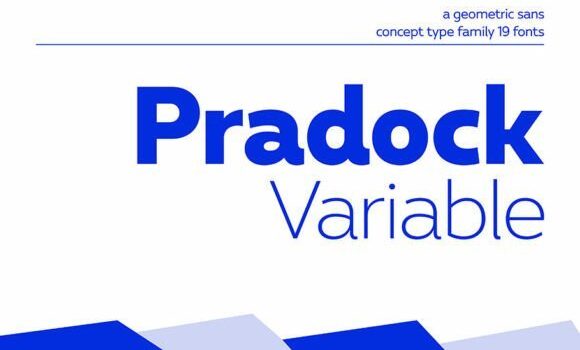
pradock
Pradock Font – Free Download Introduction to Pradock Font Pradock the newest geometric Sans-Serif font for a family is easy to use almost anywhere on your website, be it in the header or as smaller text with the Variable concept.